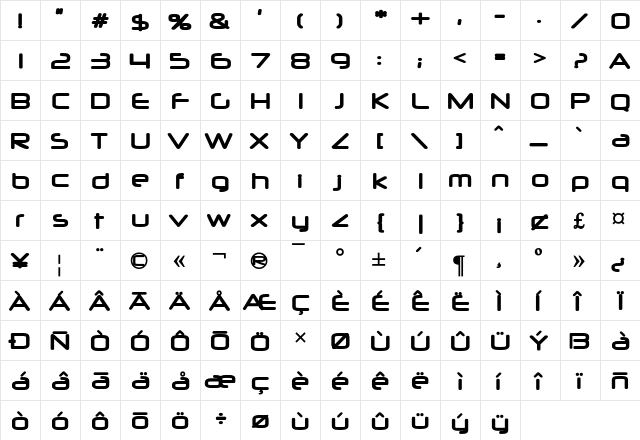
Neuropol Bold
Design Context for Neuropol Typeface
Neuropol is a composed and adaptable typeface that performs quietly and consistently across a wide range of design contexts. The heavy weight commands attention and anchors typographic hierarchies.